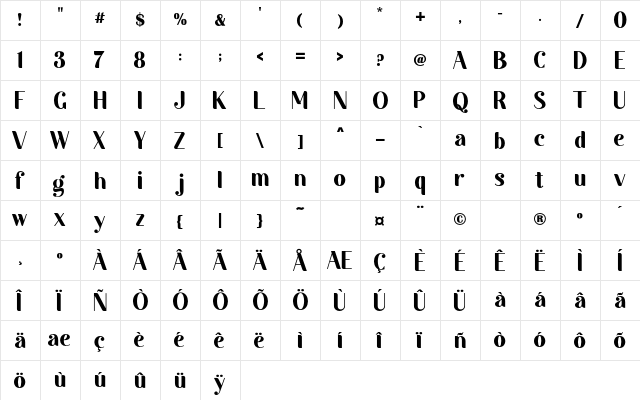
Autolinker Regular
| Foundry | 177Studio |
| Designer | 177Studio |
Design Context for Autolinker Typeface
Autolinker is a composed and adaptable typeface that performs quietly and consistently across a wide range of design contexts.